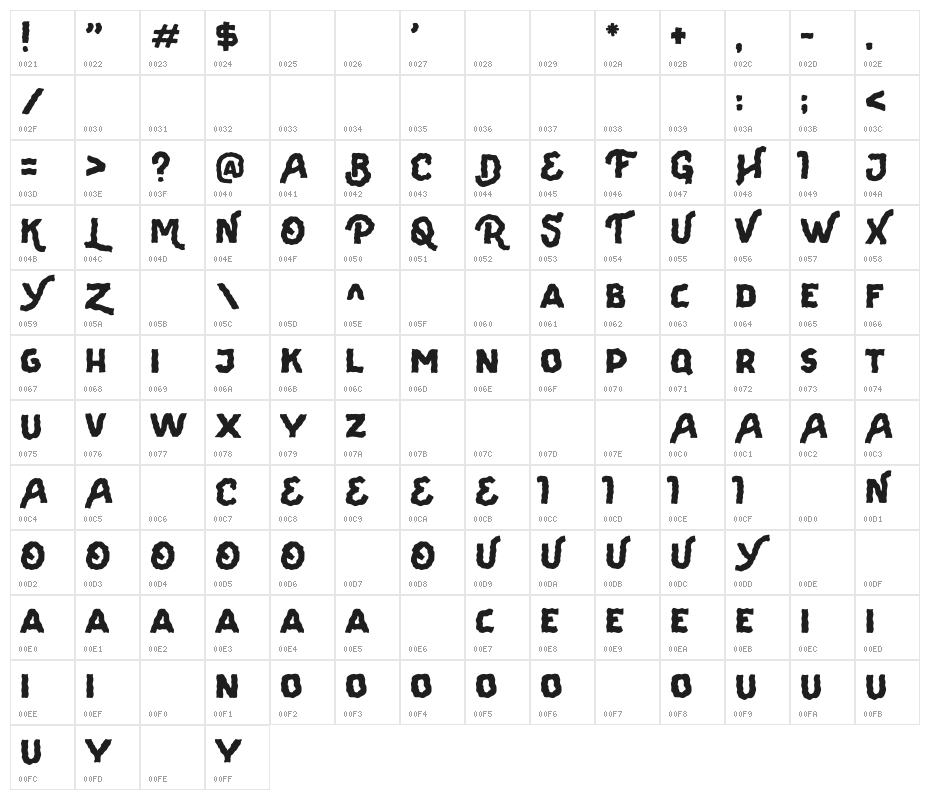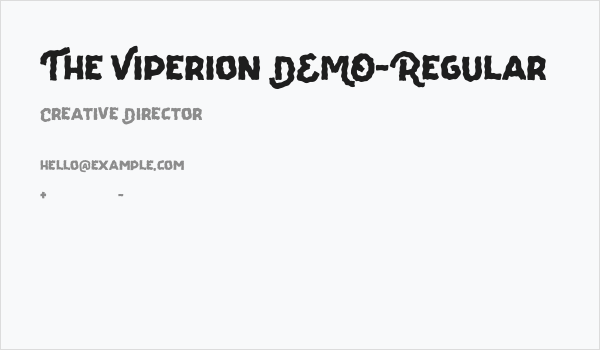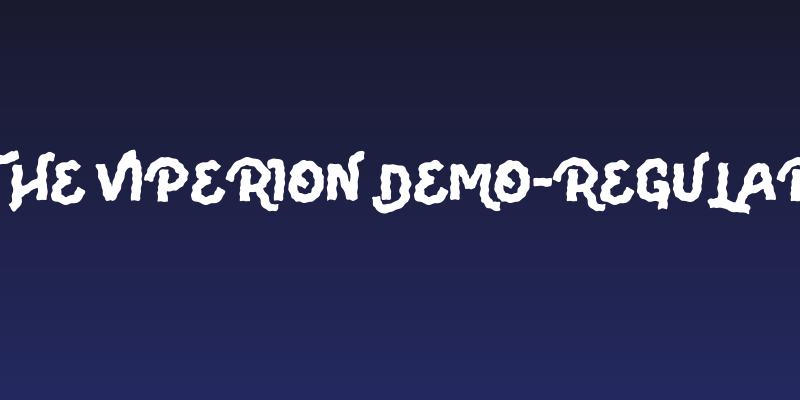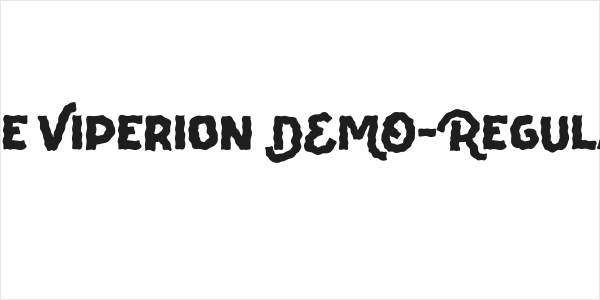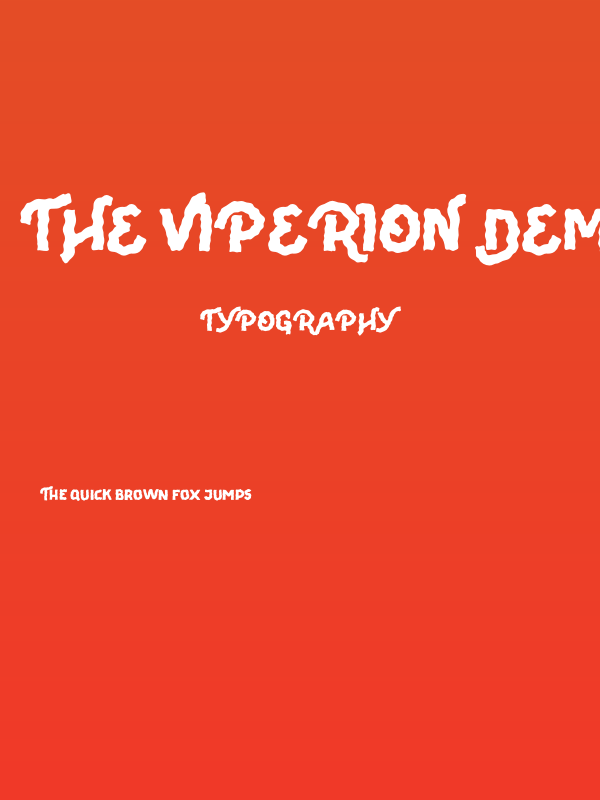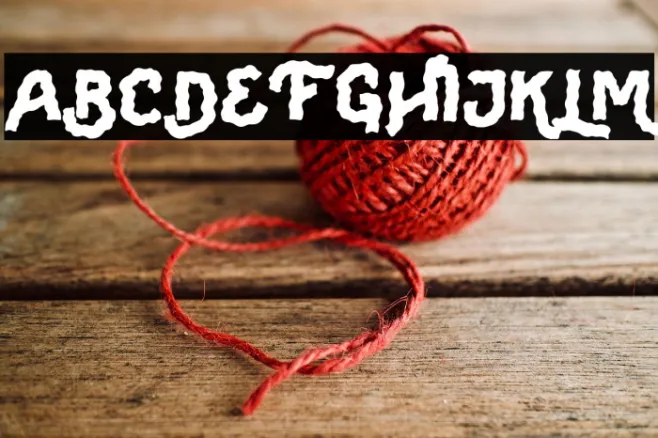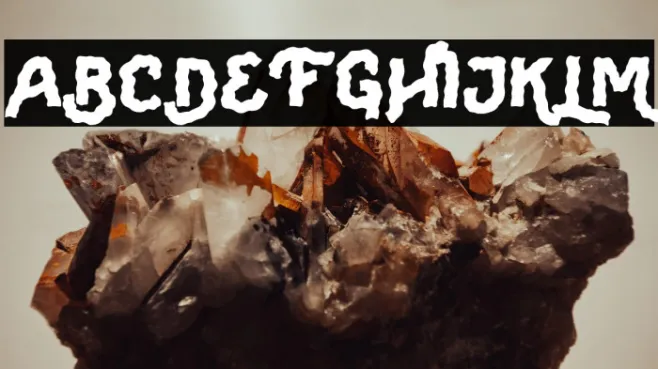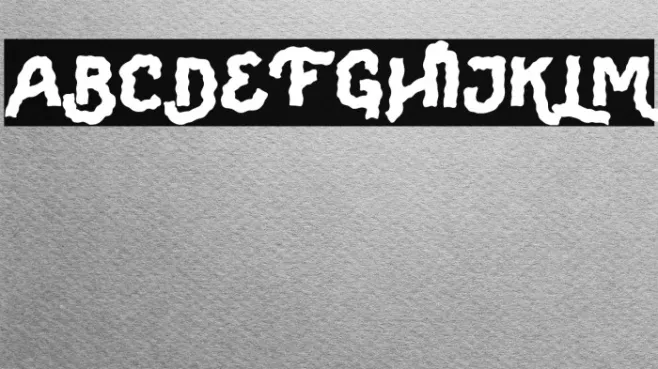
The Viperion DEMO-Regular Font
The Viperion DEMO-Regular Description
This font features a bold and rugged design, characterized by its irregular, jagged edges and a hand-drawn appearance. The letters have a strong presence, with thick strokes that give them a weighty feel. The style is reminiscent of graffiti or street art, with an edgy and rebellious vibe. The uppercase and lowercase letters maintain a consistent style, ensuring readability while still offering a unique aesthetic. The numbers and special characters follow the same design principles, making them suitable for creative and unconventional projects.
| Proposed Projects | Ideal for posters, album covers, streetwear branding, and edgy graphic designs. |